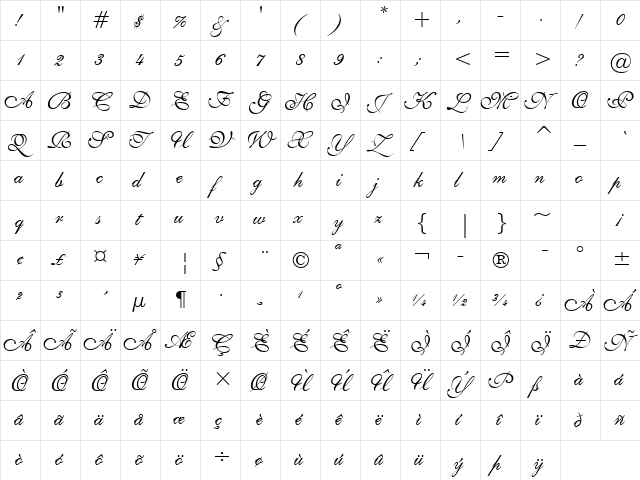
English111 Presto BT Regular
Design Context for English111 Presto BT Typeface
English111 Presto BT is a composed and adaptable typeface that performs quietly and consistently across a wide range of design contexts.